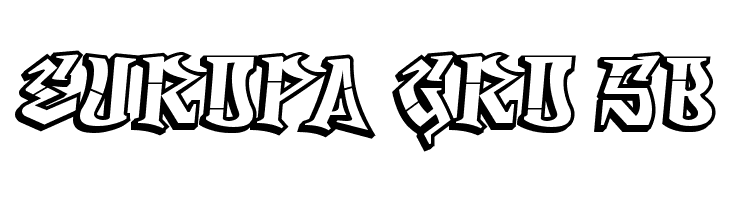
A bold, wavy font with a psychedelic, retro feel.
A bold, graffiti-inspired font with sharp, angular edges and a 3D effect.
A dramatic, edgy font with sharp serifs and a distressed, dripping appearance.
A bold, geometric stencil font with an edgy, fragmented design.
A dynamic, angular font with a sleek, modern feel.
A bold, graffiti-inspired font with dynamic, hand-drawn strokes.
A bold, edgy font with sharp, angular strokes and an industrial feel.